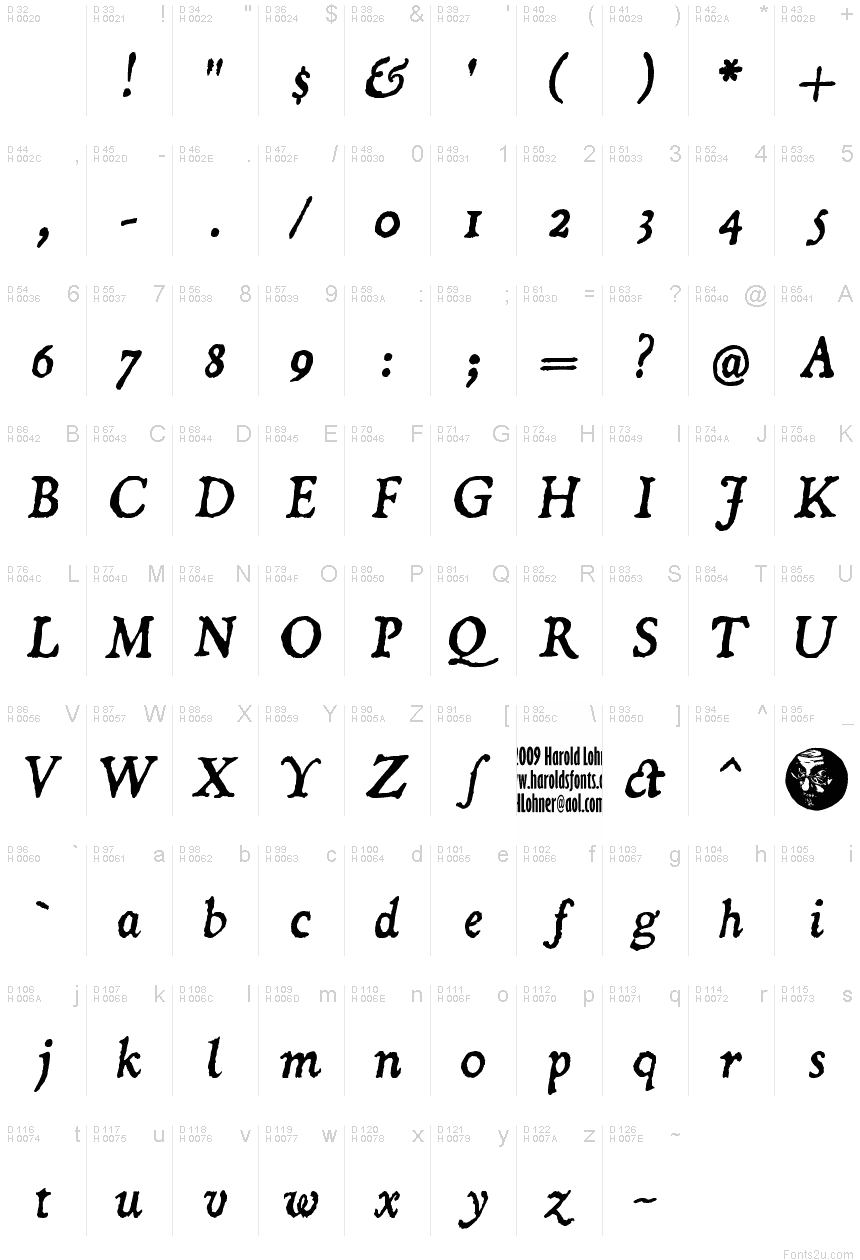
Dominican Italic
Dominican Italic font by Harold Lohner is a free eroded serif font with the look of ink pressed hard onto rough paper. Its chunky, slanted shapes feel hand-stamped and slightly weathered, with ragged edges that give headlines a gritty, lived-in voice. The weight stays bold and readable even when the texture gets gnarly.
Using Dominican Italic, you can add instant character to vintage posters, horror or Halloween flyers, western-style signage, indie album covers, book or zine titles, craft-beer labels, and distressed brand marks. This free font shines best at larger sizes—pair it with a clean sans like Inter or Helvetica to keep layouts crisp and let the grunge do the talking.